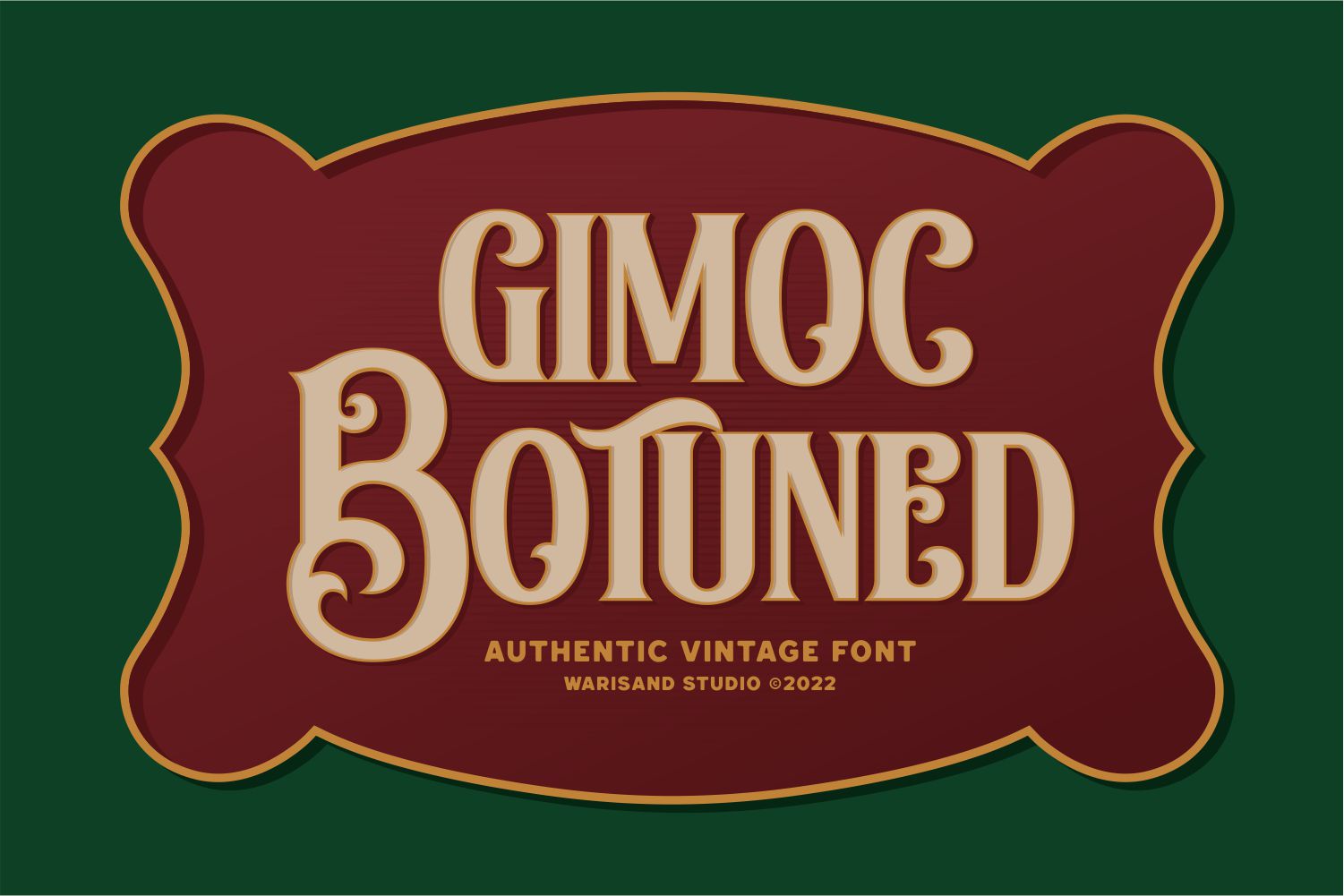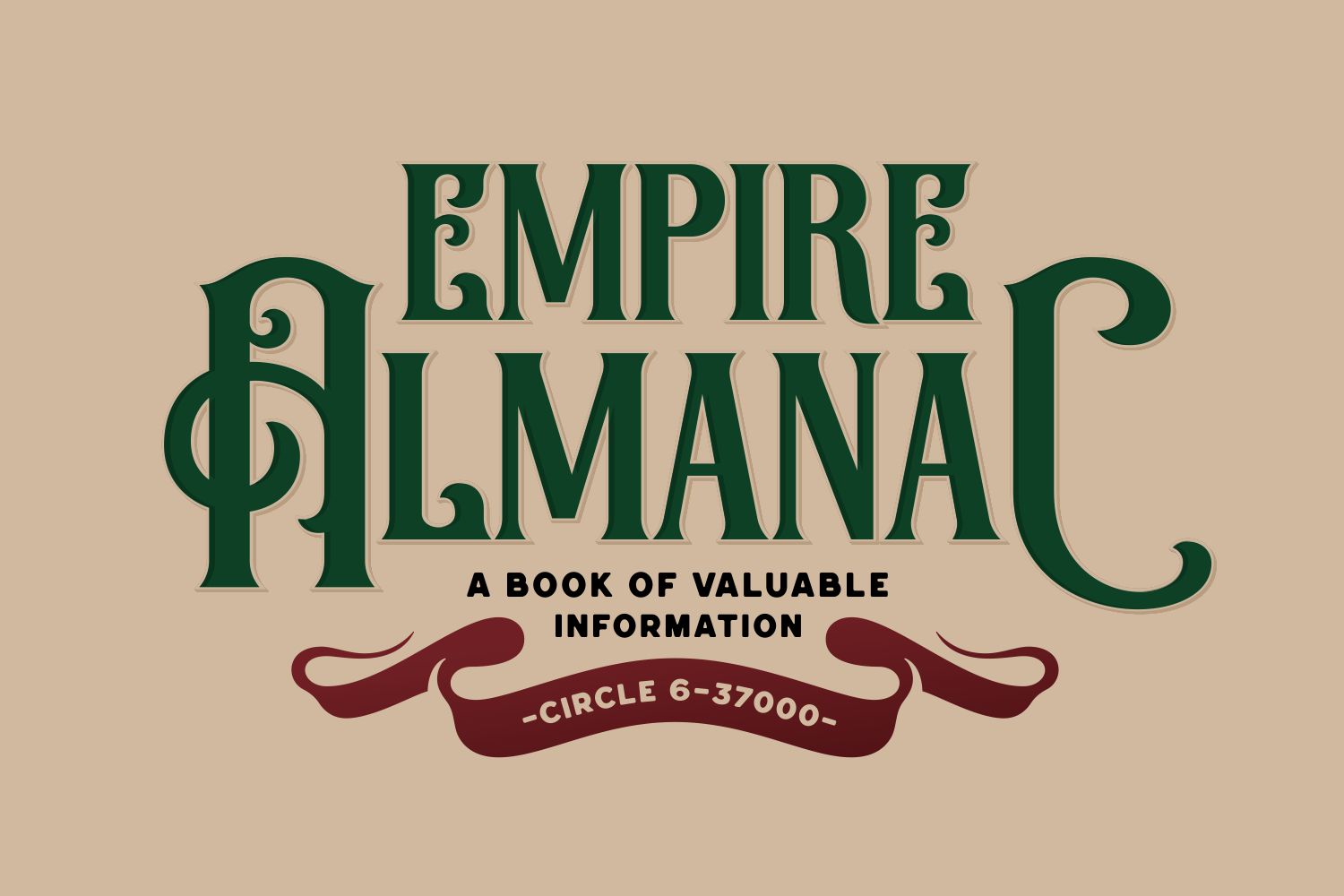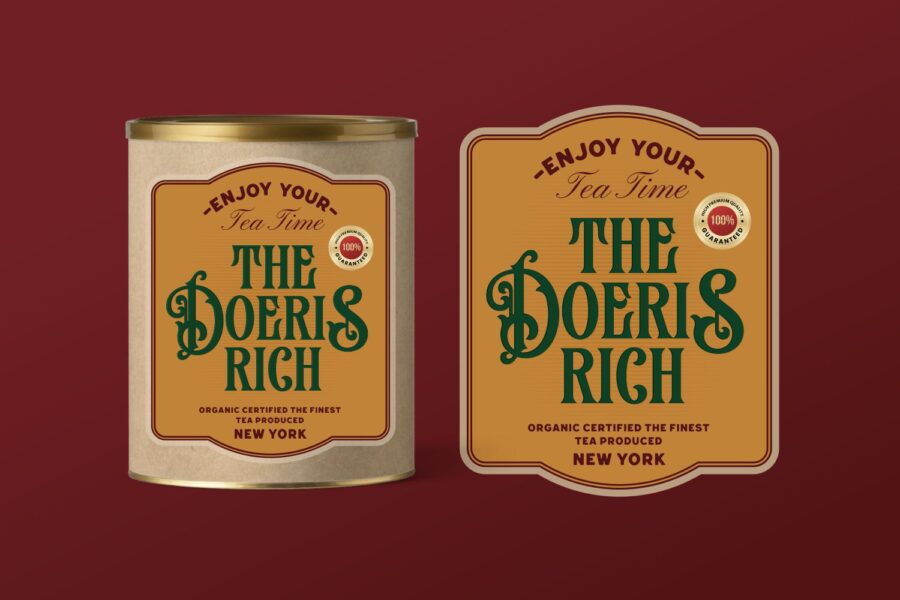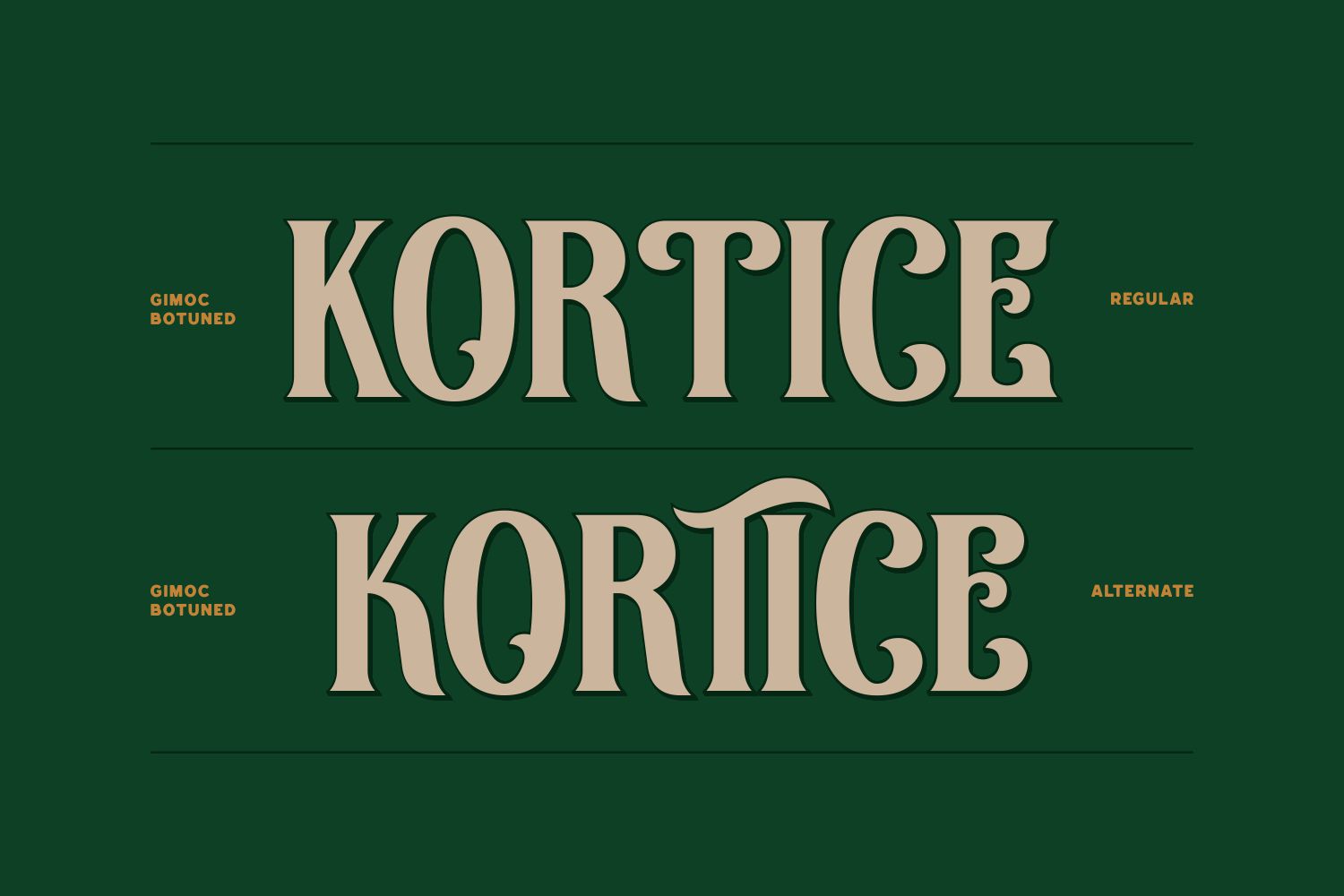
Gimoc Botuned is an authentic vintage display font that evokes the spirit of the early 1900s with a bold, ornamental touch. Inspired by vintage signage, apothecary labels, and early Americana packaging, this typeface brings classic charm with modern refinement. The font offers both regular and alternate characters, giving designers full creative control over stylistic compositions. With intricate swashes and elegant curves, Gimoc Botuned is ideal for headline design, tea packaging, beer labels, or editorial graphics that require a unique visual voice.
Equipped with a complete character set including uppercase, lowercase, numbers, punctuation, and alternates, Gimoc Botuned is a versatile font that balances decorative aesthetics with readability. It’s especially suitable for vintage branding, artisanal products, boutique identities, and any design work that seeks to celebrate tradition with character and sophistication.
Gimoc Botuned